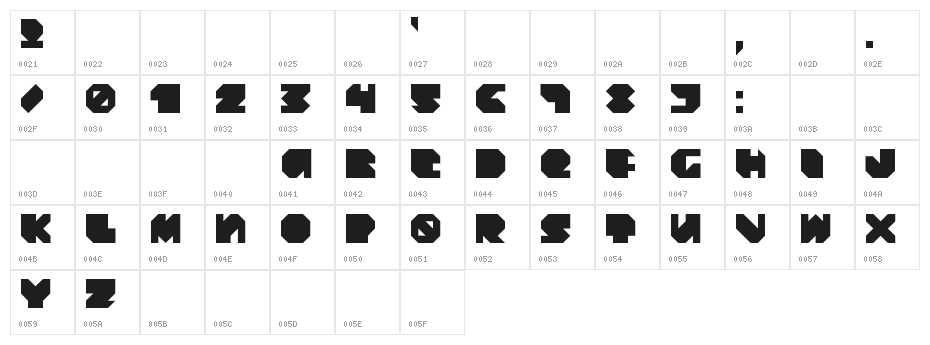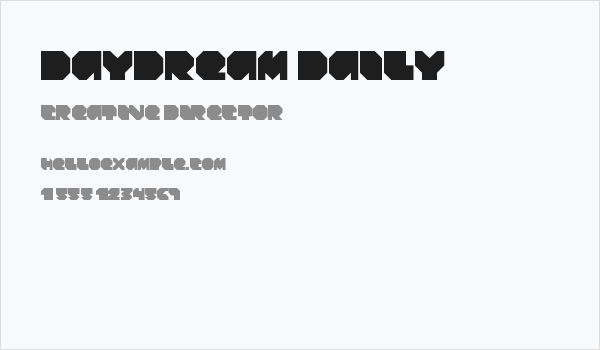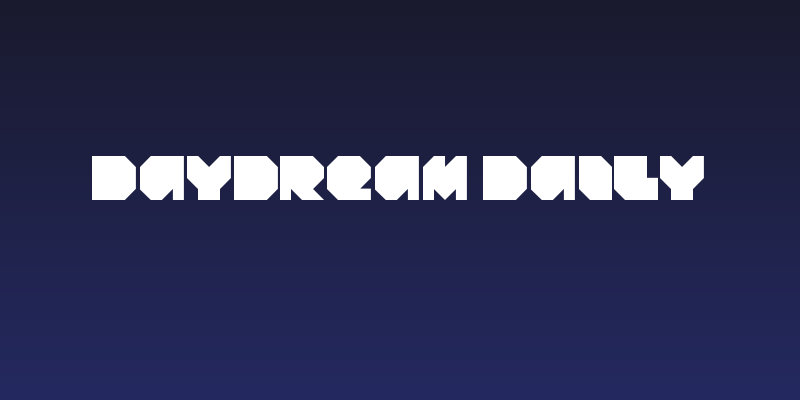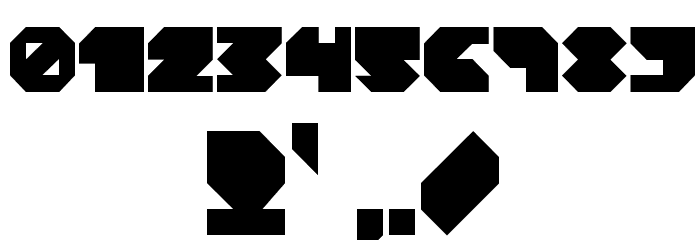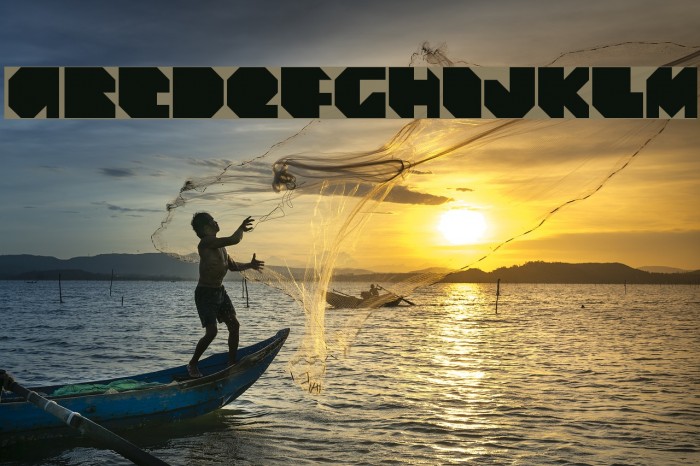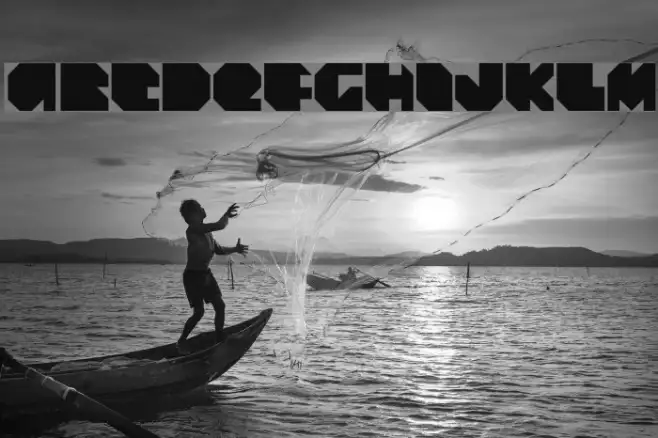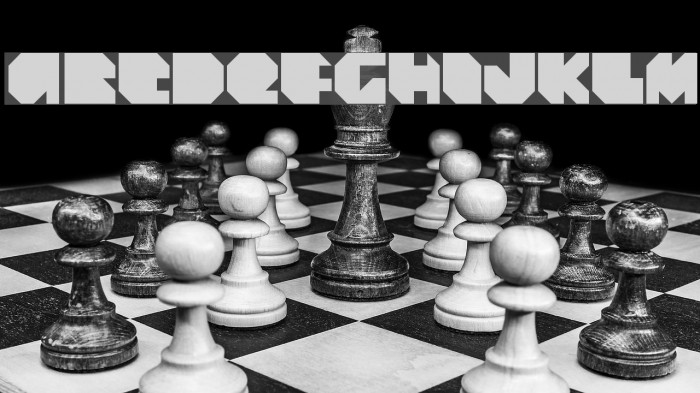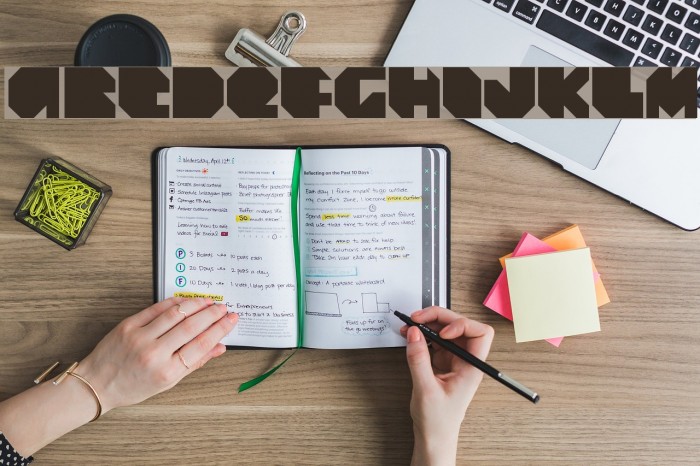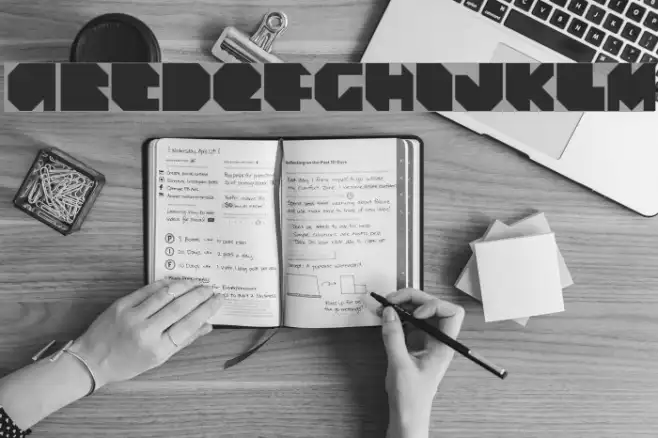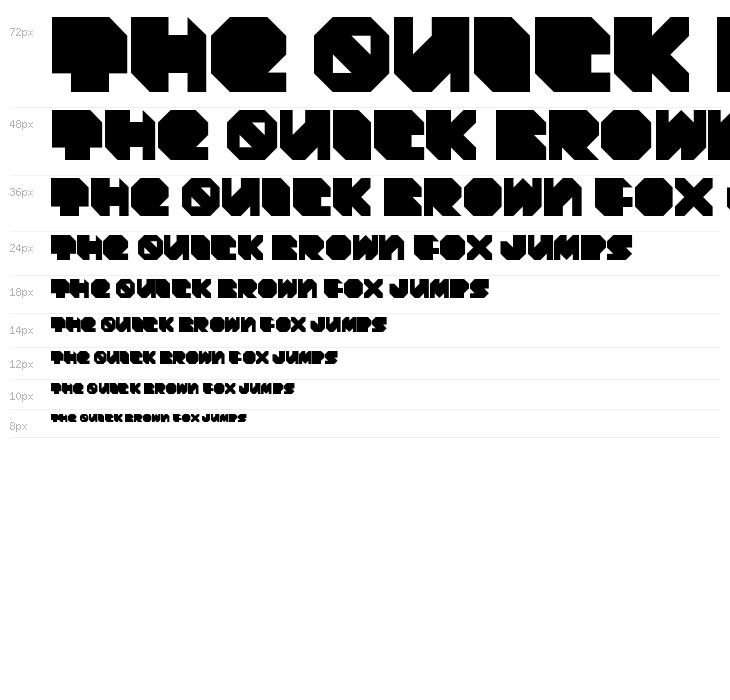
Daydream Daily Font
Daydream Daily Description
This font features a bold, geometric design with sharp angles and a blocky appearance. Each character is constructed with a series of straight lines and pointed edges, creating a futuristic and industrial feel. The uppercase and lowercase letters maintain a consistent style, with the lowercase slightly smaller but equally bold. Numbers and special characters follow the same angular and robust design, ensuring uniformity across all glyphs. The font's distinct style makes it stand out, suitable for projects that require a strong visual impact.
| Proposed Projects | Ideal for branding, posters, video game graphics, and any project needing a bold, modern aesthetic. |